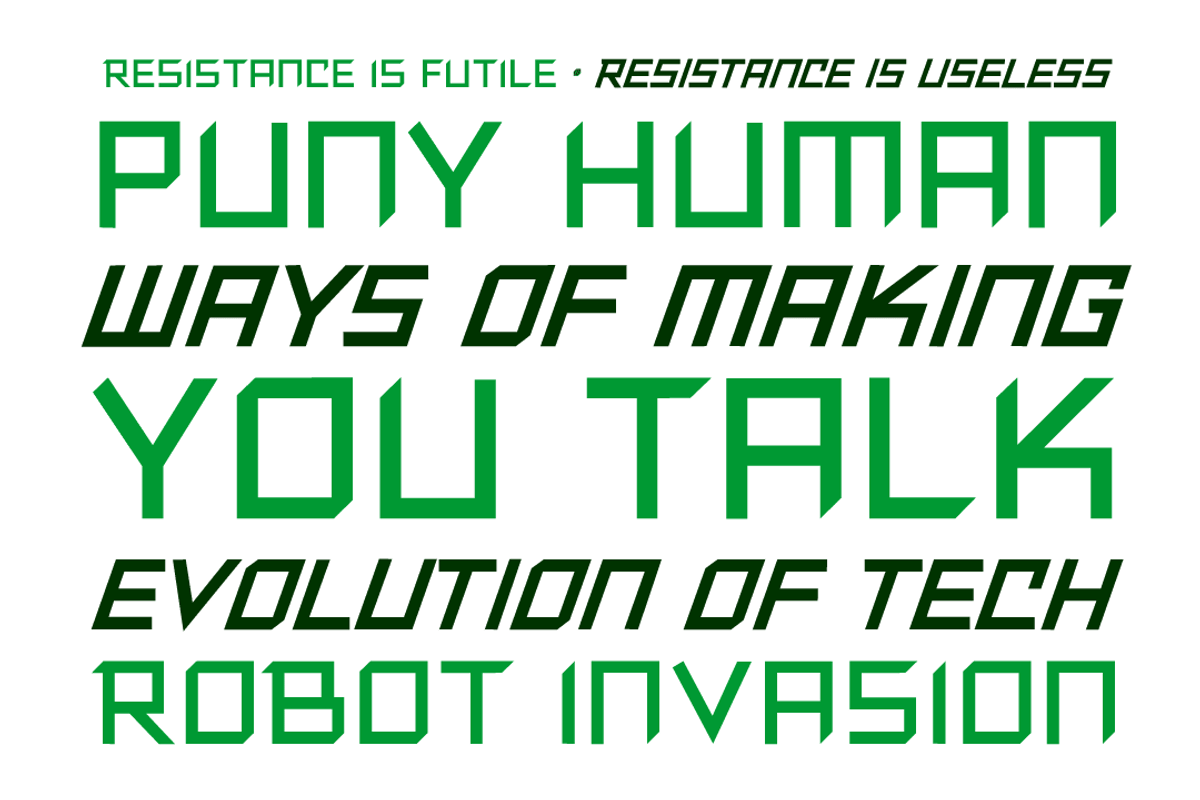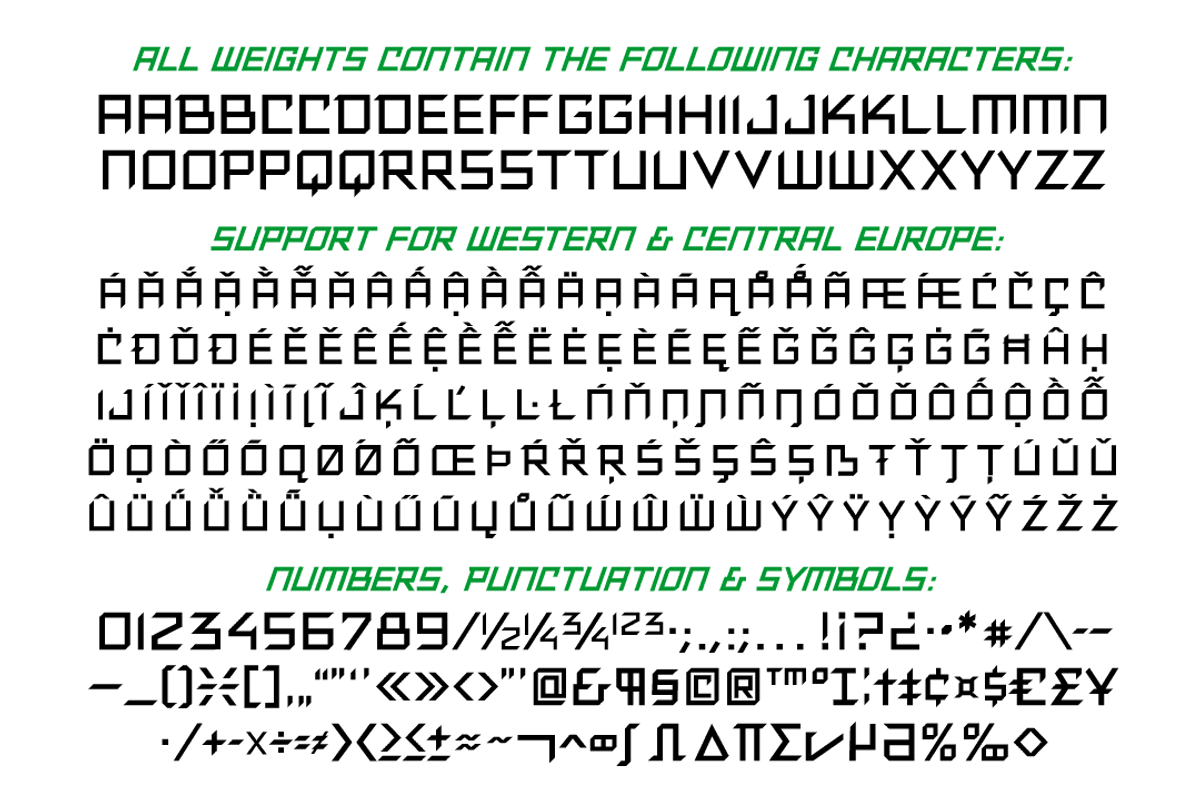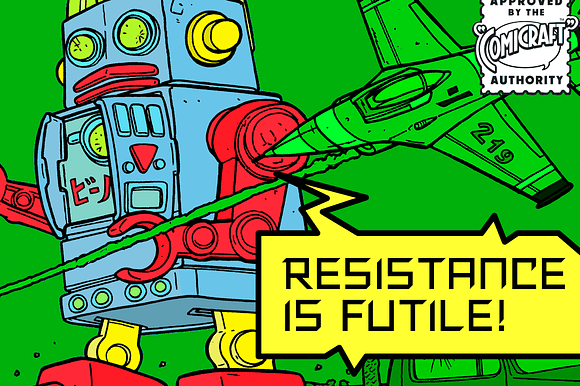
Resistance Is Futile - robot voice
You will not move. You will not breathe. You will not think. You WILL buy this font. You are our prisoner. There is no escape...